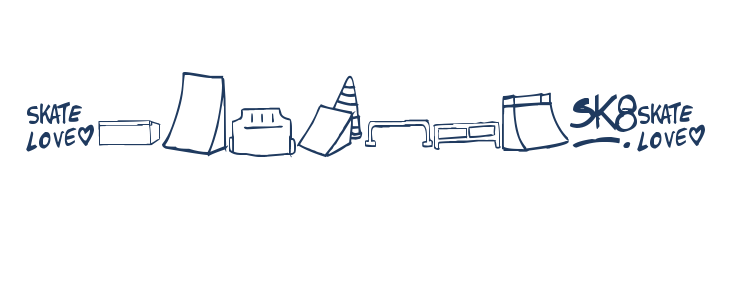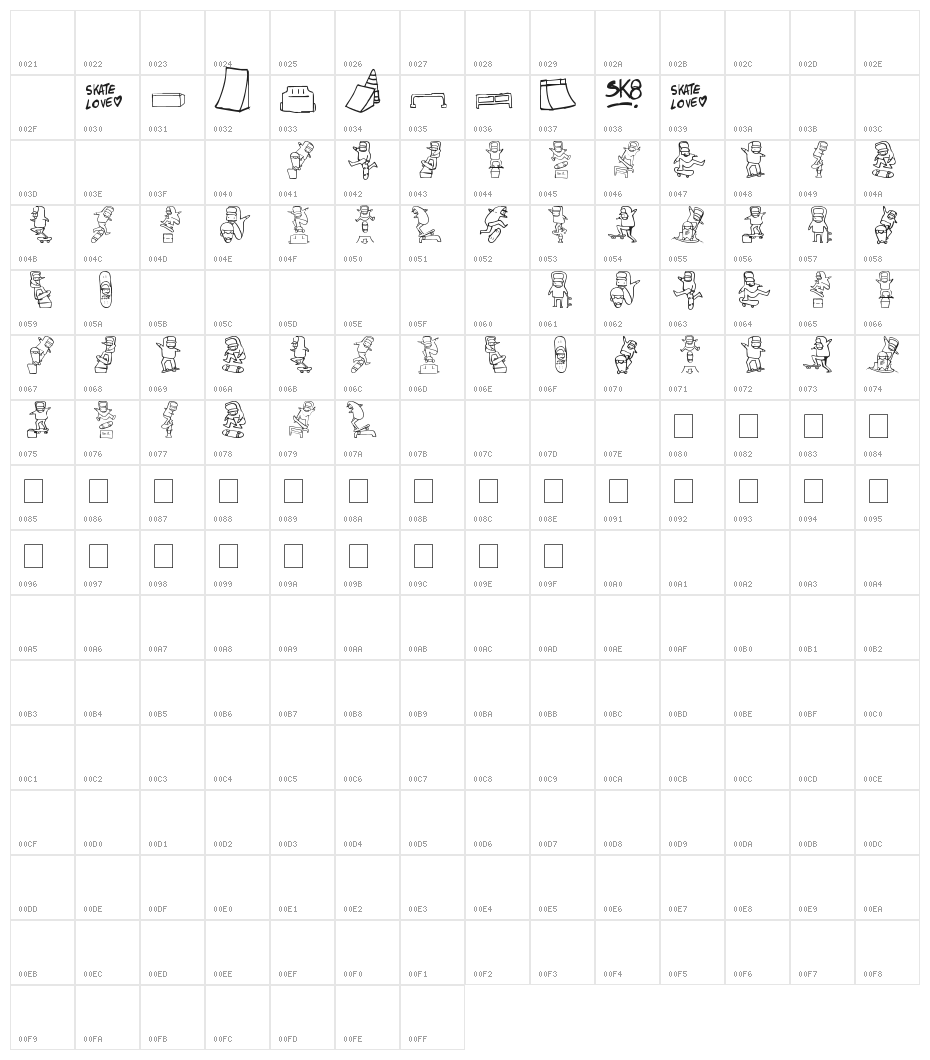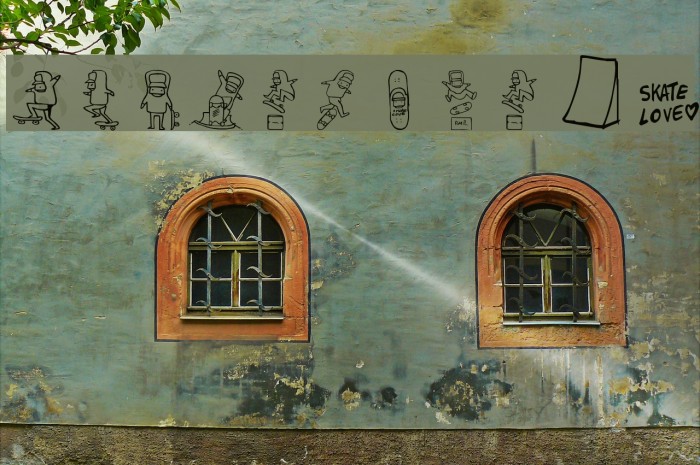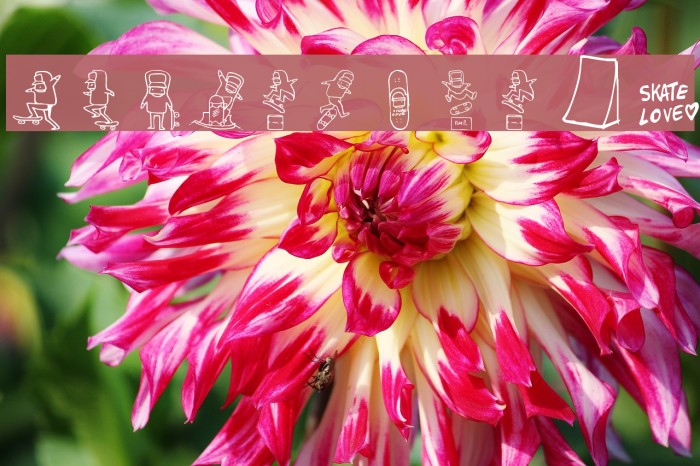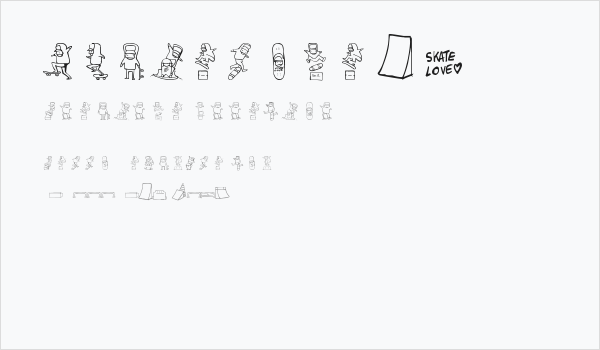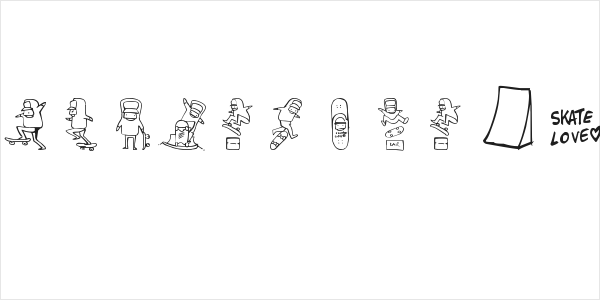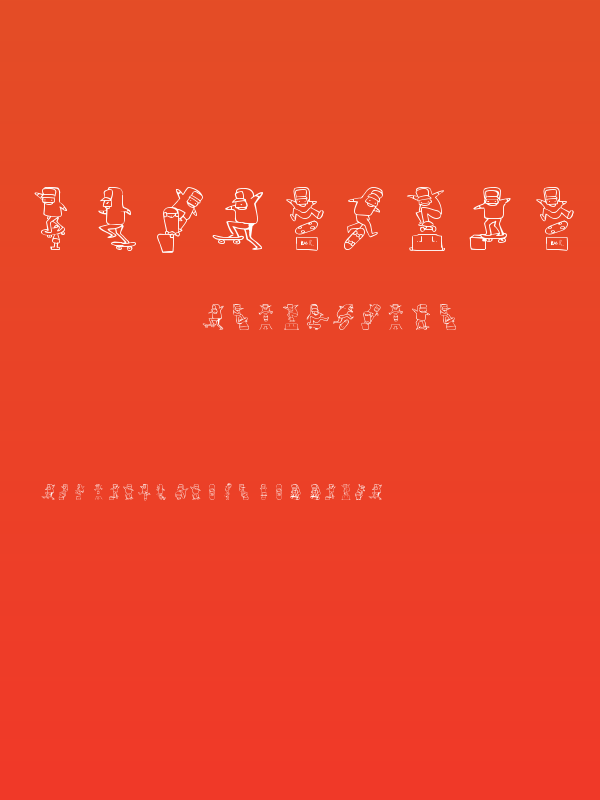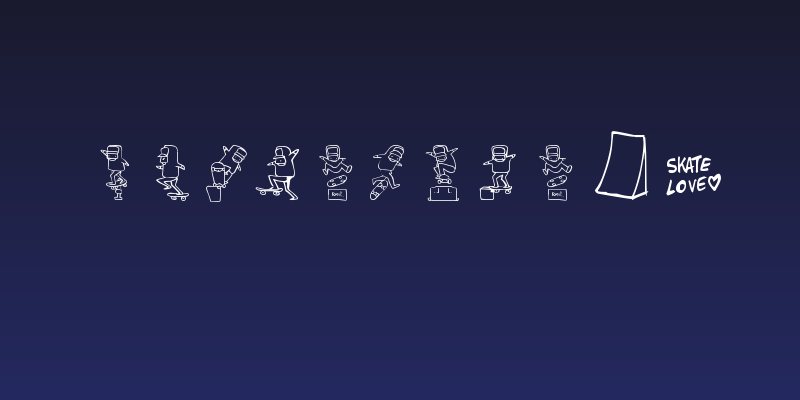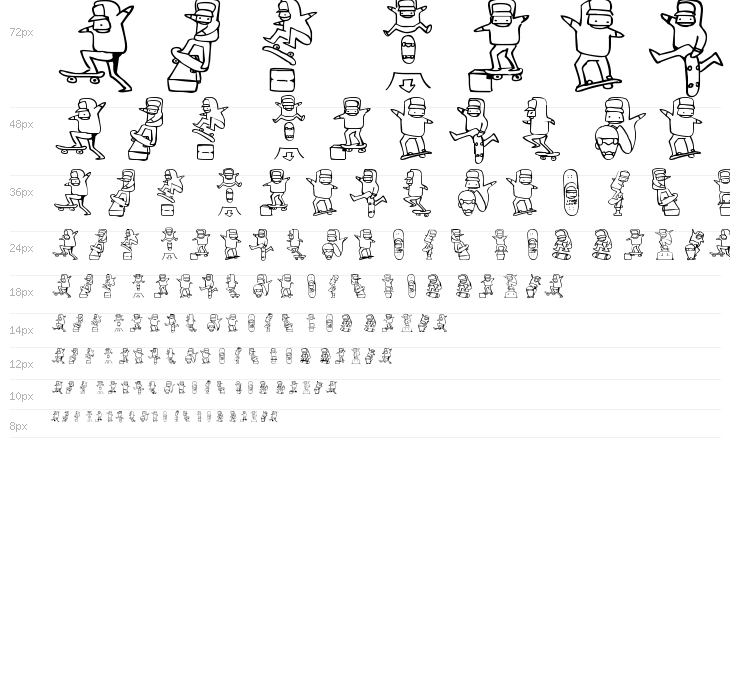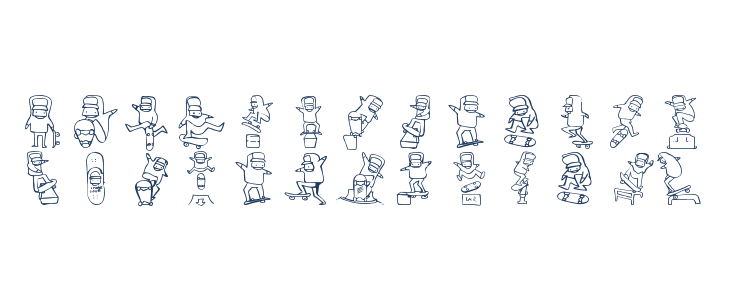
skatelove 2.0 Font
skatelove 2.0 Description
A playful, hand-drawn decorative font featuring cartoonish skateboarders, skateboarding equipment, and casual handwritten text elements. The characters are illustrated with dynamic poses and urban flair, giving a lively and energetic feel.
Overall StylePlayful, Urban, Decorative
Use CaseLogos, Posters, Headlines, Themed graphics
Proposed ProjectsYouth event posters, skateboard brand logos, apparel graphics, social media graphics, zines, and themed party invitations.